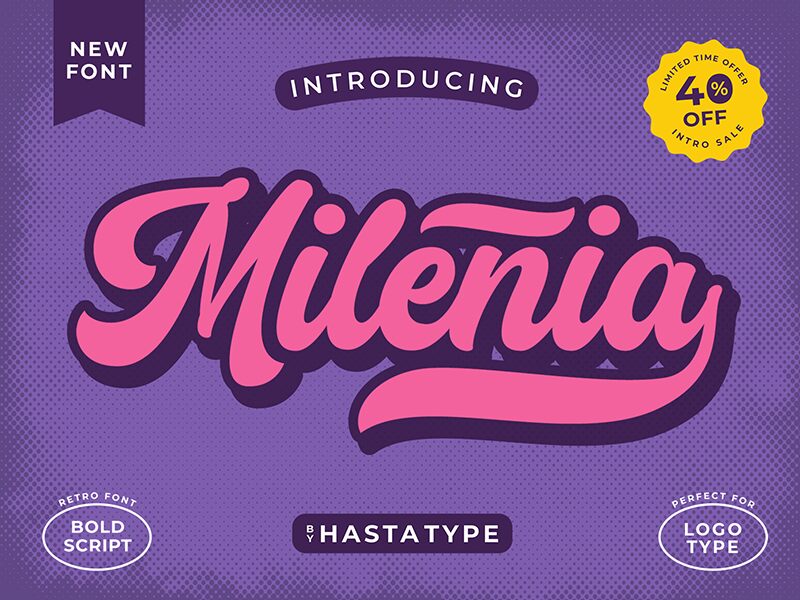
Milenia
Introducing Milenia, a bold old school script font designed by Salman Mashudi. Perfect for adding a vintage vibe to any project, from logos & branding to stationery & posters.
Salman Mashudi